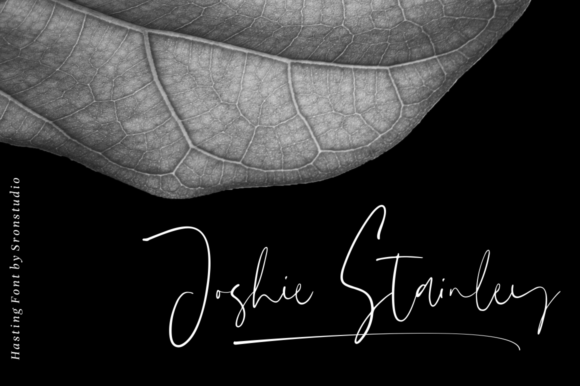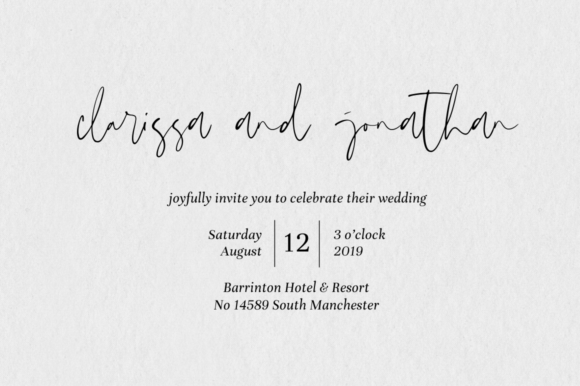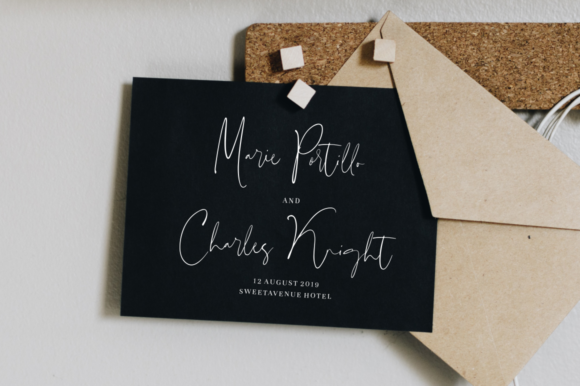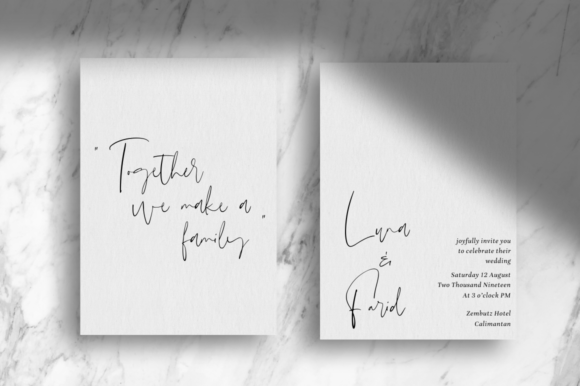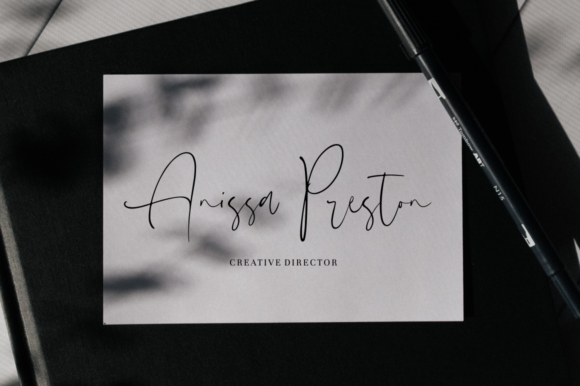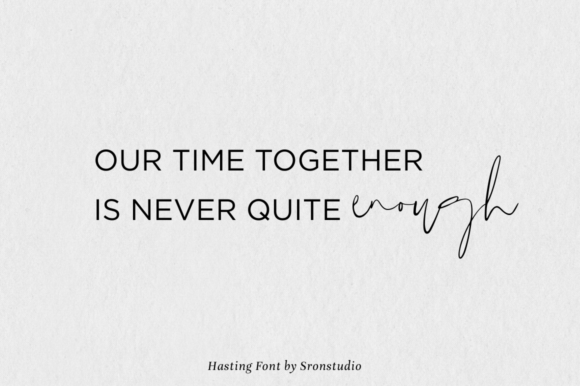
Introduction to Hasting Font
Hasting is a relaxed and elegant handwritten font.
Every letter has a unique and beautiful touch, which will make your design come alive .
Key Features of Hasting Font